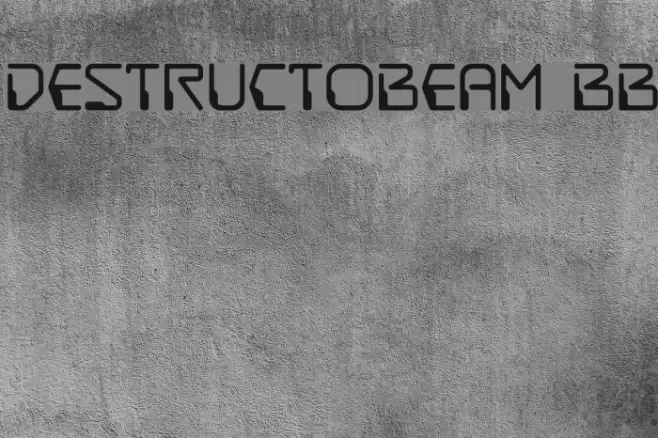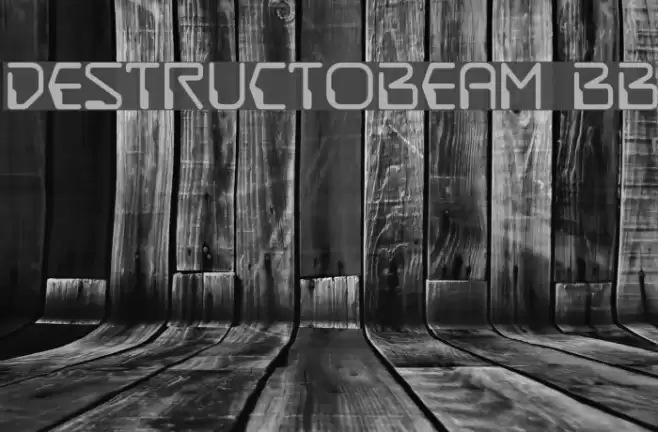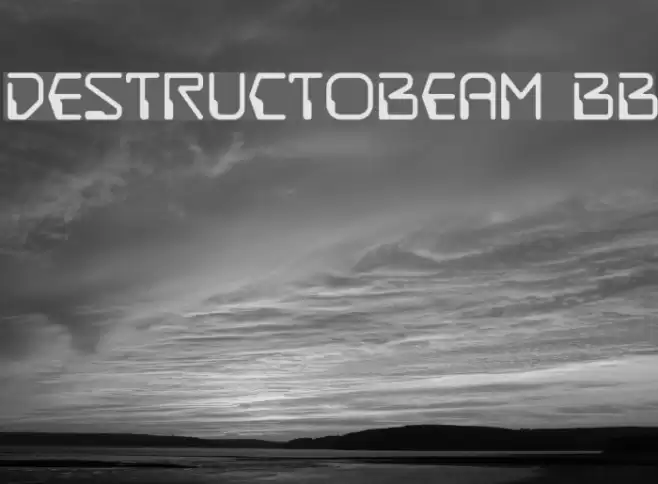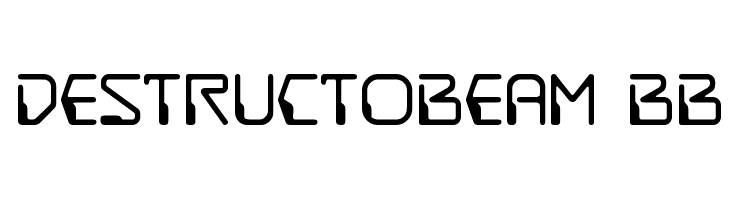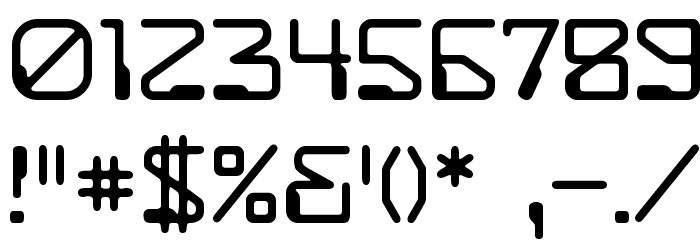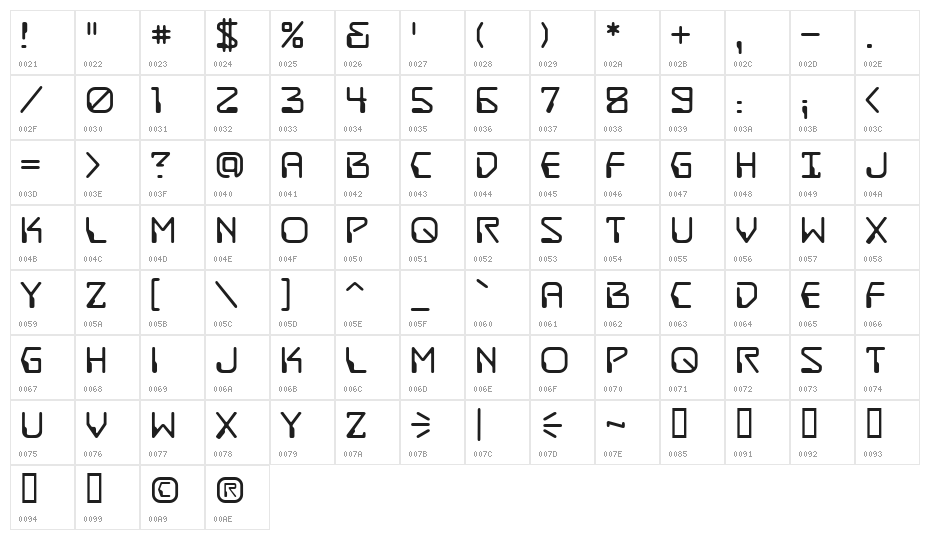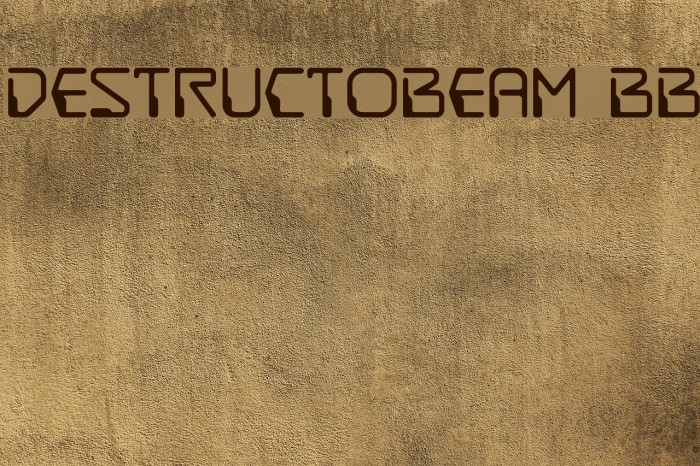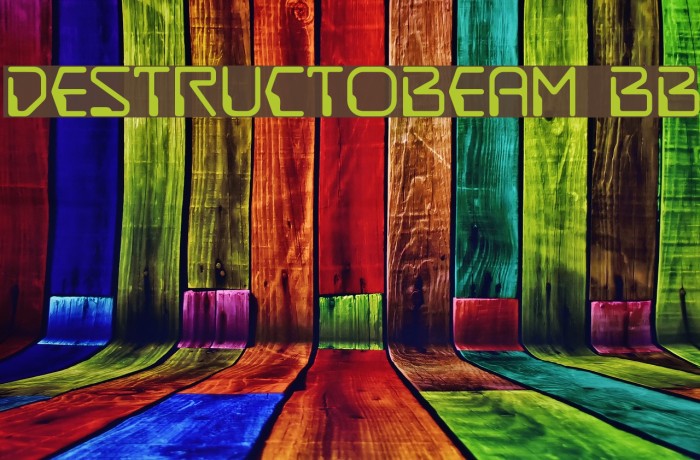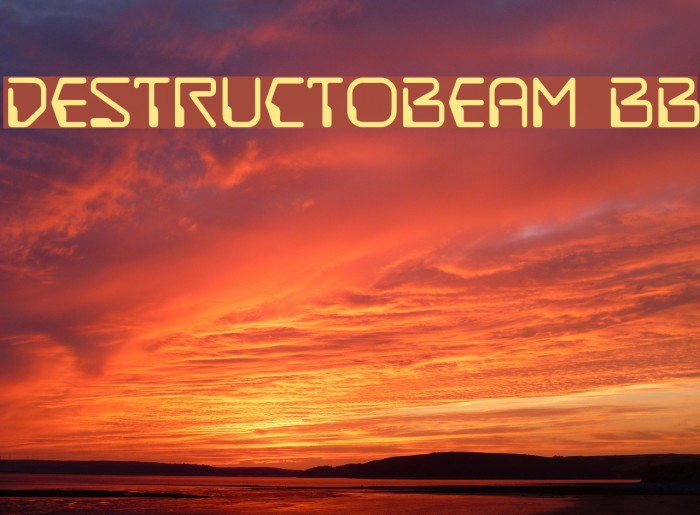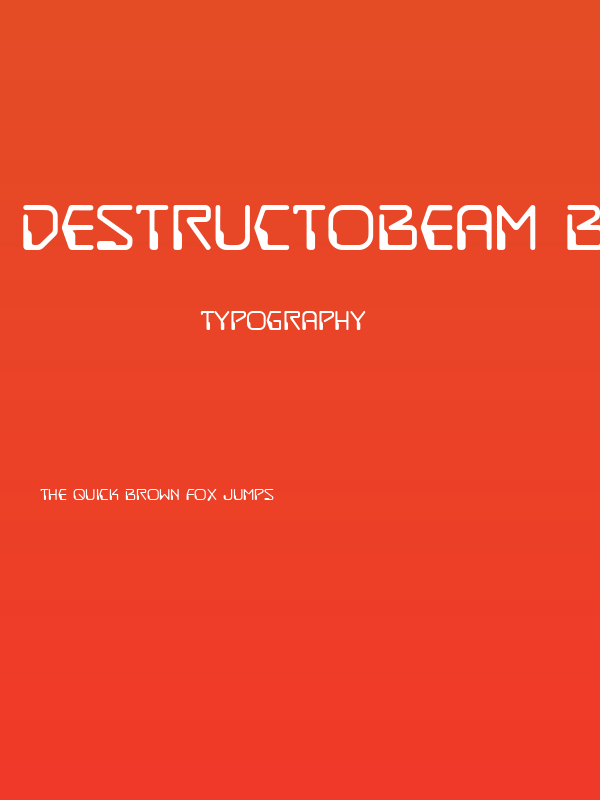
DestructoBeam BB Font
DestructoBeam BB Description
This font features a futuristic and geometric design with a bold and angular appearance. The characters are constructed with a combination of straight lines and sharp angles, giving it a distinct, modern look. The uppercase and lowercase letters maintain a consistent style, with uniform stroke widths and a slight rounded edge that softens the overall sharpness. The numerals and special characters follow the same design principles, ensuring a cohesive appearance across all glyphs. This font is well-suited for projects that require a modern, tech-inspired aesthetic.
A bold, futuristic font with geometric and angular design elements from Uncategorized fonts.
- Proposed Projects: Ideal for sci-fi themed projects, technology branding, video game titles, and modern posters.